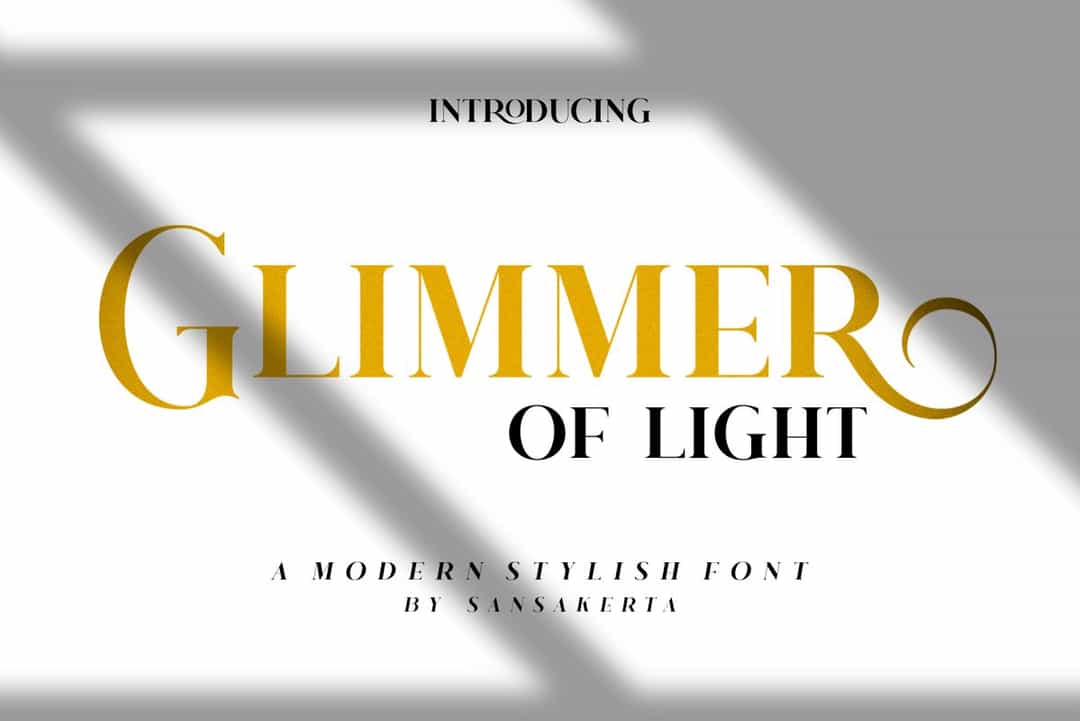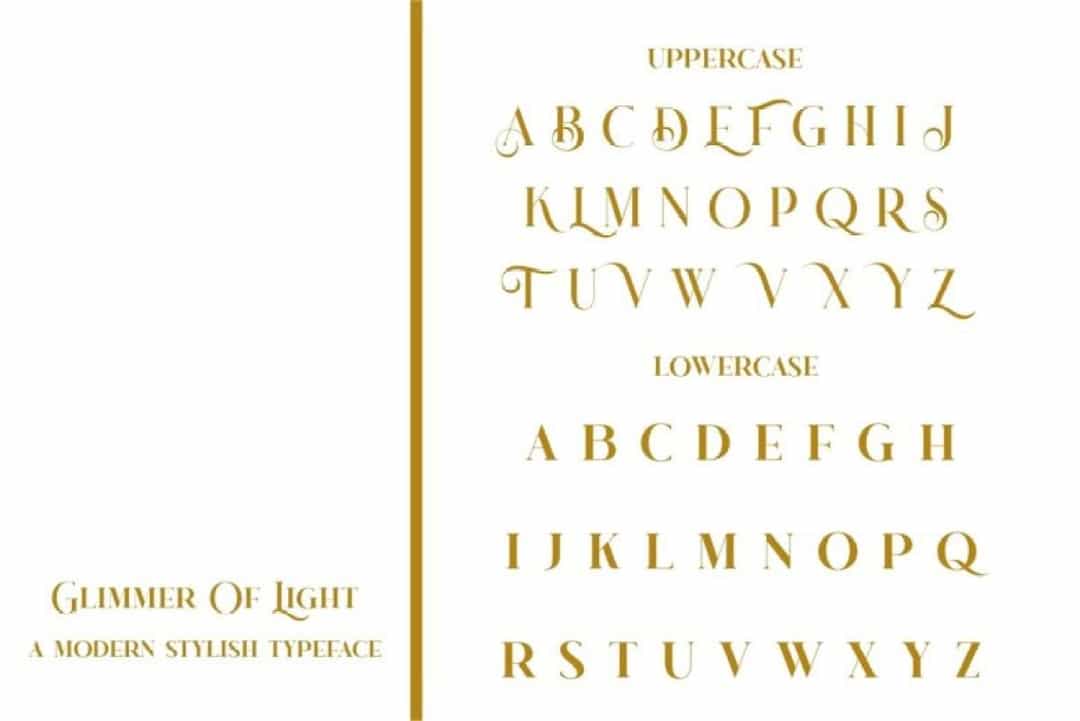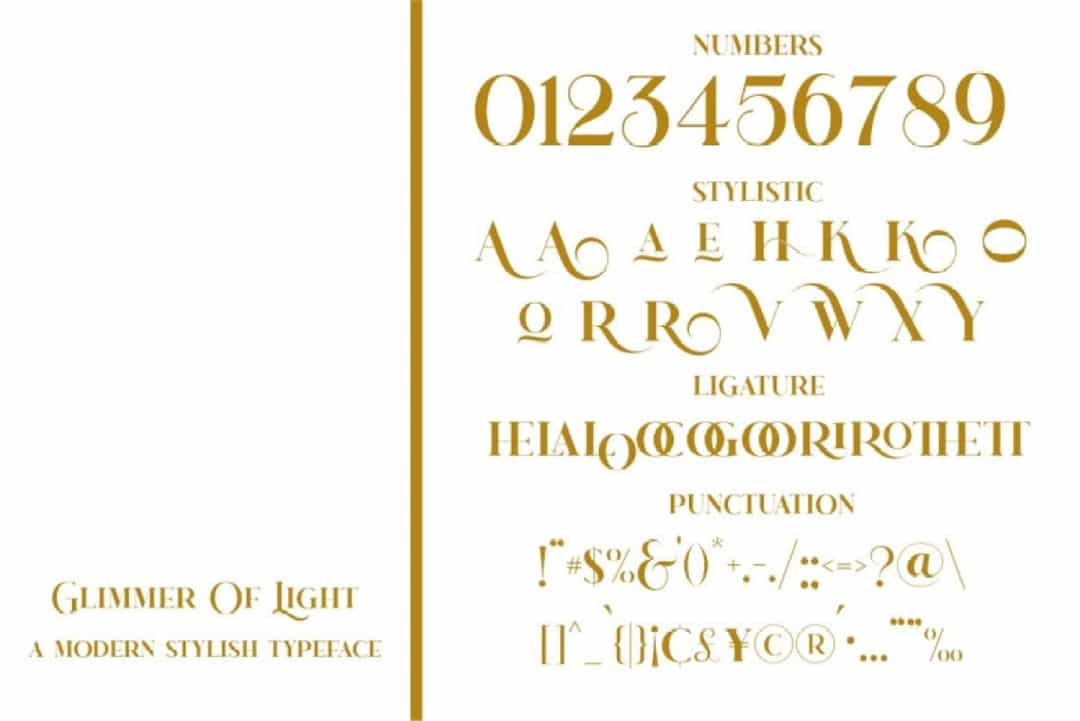
Glimmer Of Light Font is a very beautiful font. It is a typeface that has a wild yet classy appeal and will lend class to any style that it is used with. Initially created in the context of the Art Deco style, Glimmer Of Light does not seem outdated today because of a high level of its stylistic variation and ligatures, making it a very versatile serif font.